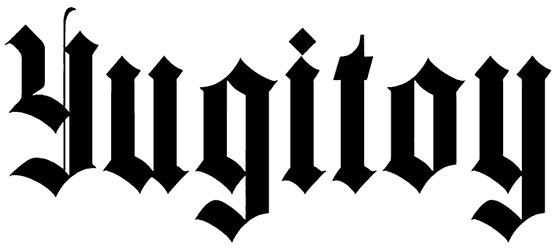
Yugitoy Font
Time to create a glorious medieval mood for your next project and keep all eyes on your design. Yugitoy is an antique font with historical ornaments that will daintily display your modern design. You can set Yugitoy on a lot of projects, such as flyers, book covers, backgrounds, or anything, and you will see that it makes them an ace one.